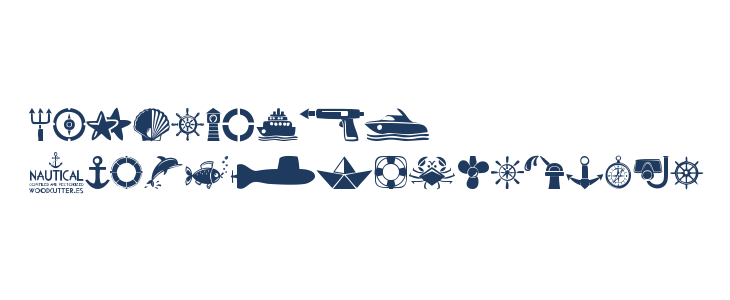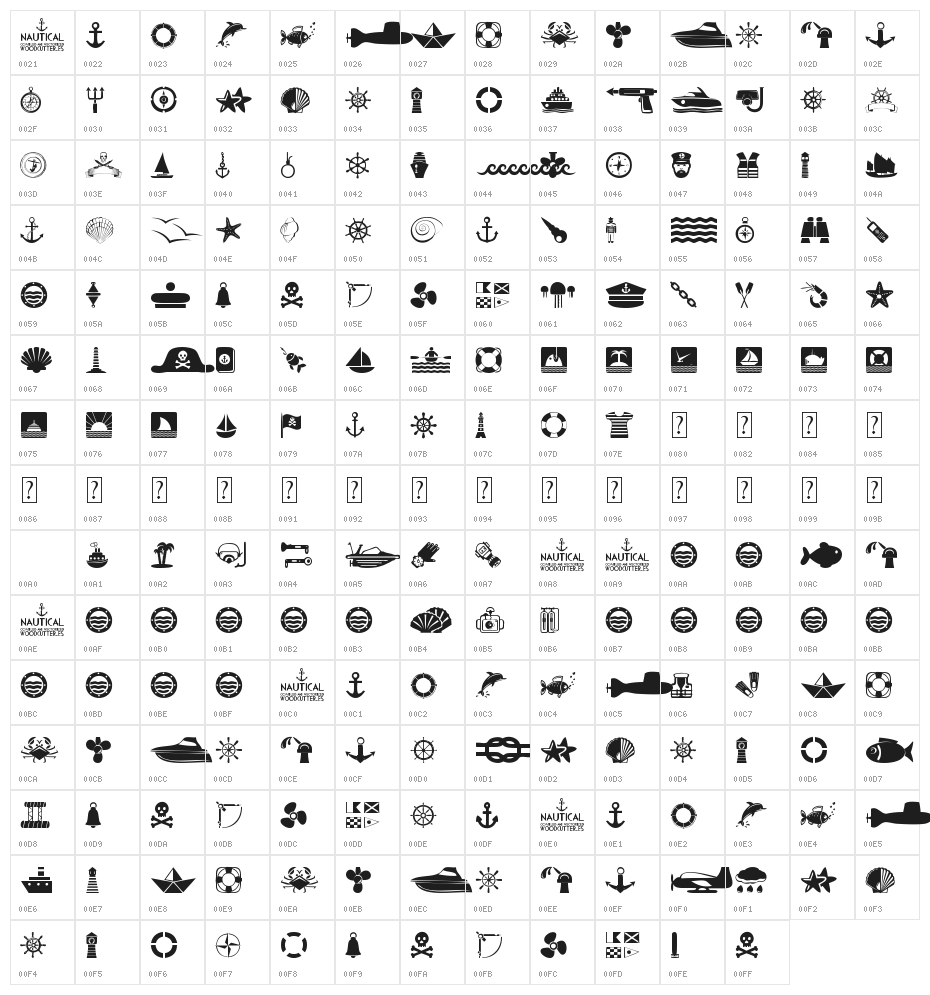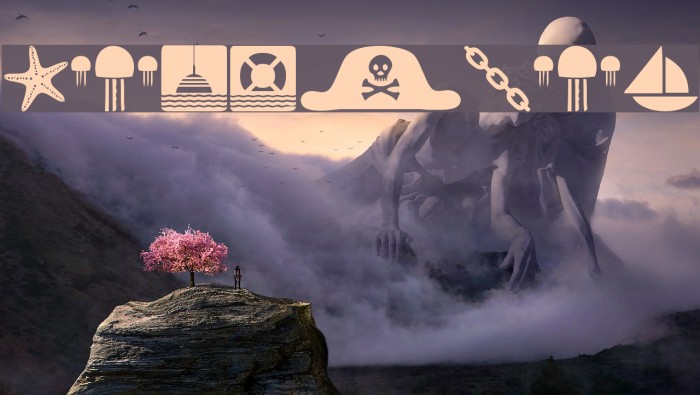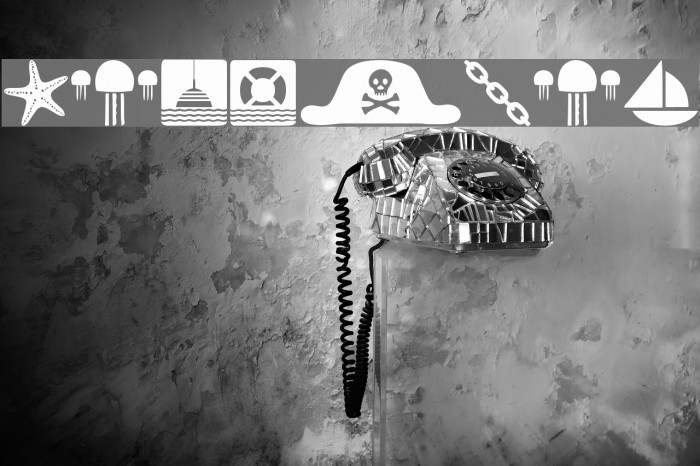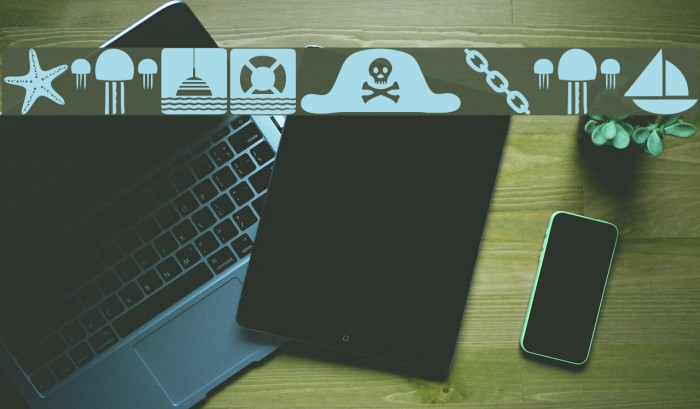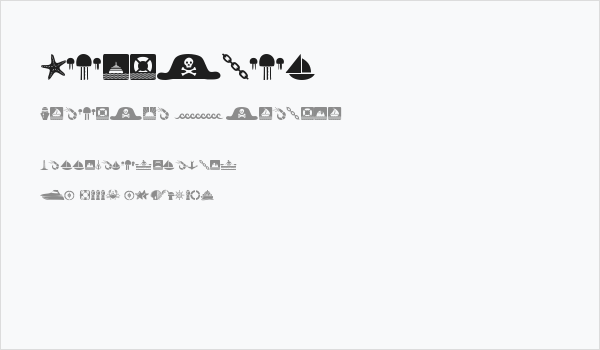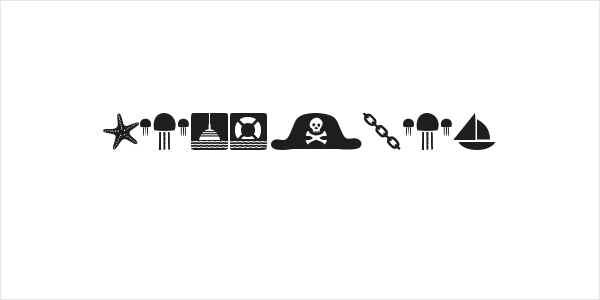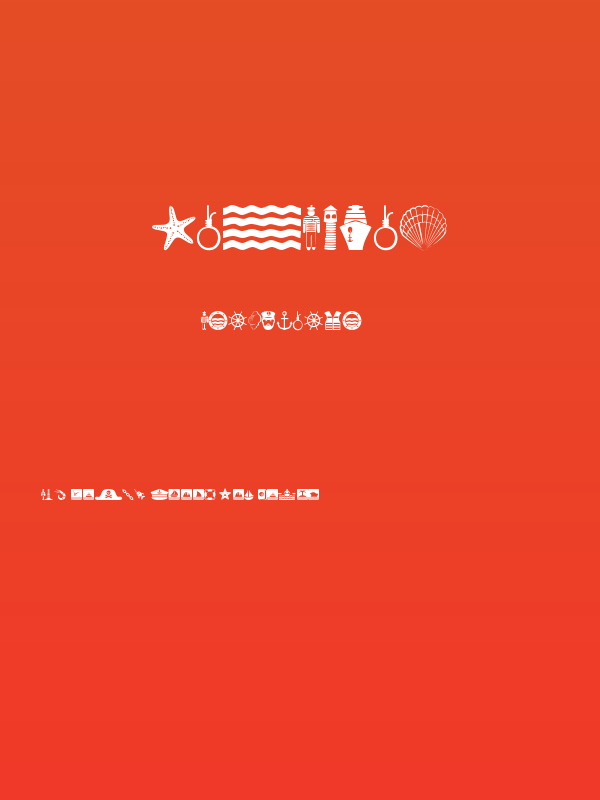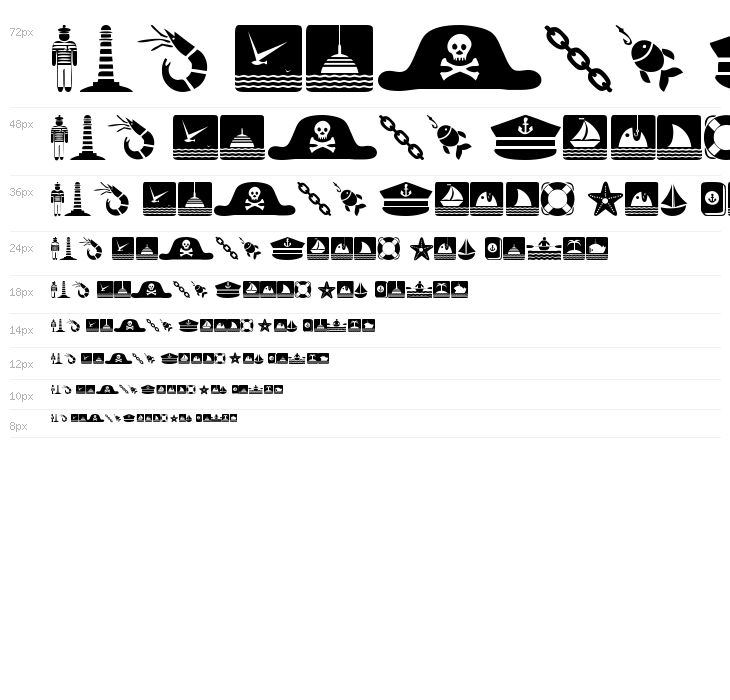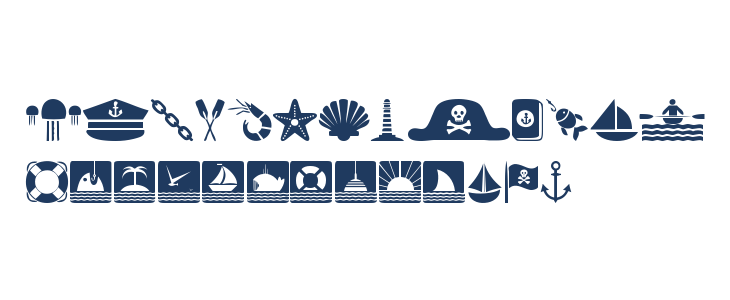
Nautical Font
Nautical Description
A decorative dingbat font featuring a variety of nautical-themed icons such as anchors, ships, shells, waves, compasses, and marine animals, rendered in bold, solid black silhouettes with clean lines and minimal detail.
| Overall Style | Decorative, Thematic |
| Use Case | Icons, Logos, Decorative elements, Themed graphics |
| Proposed Projects | Perfect for party invitations, event flyers, scrapbooking, childrenΓ’β¬β’s books, themed posters, and branding for seaside businesses. |